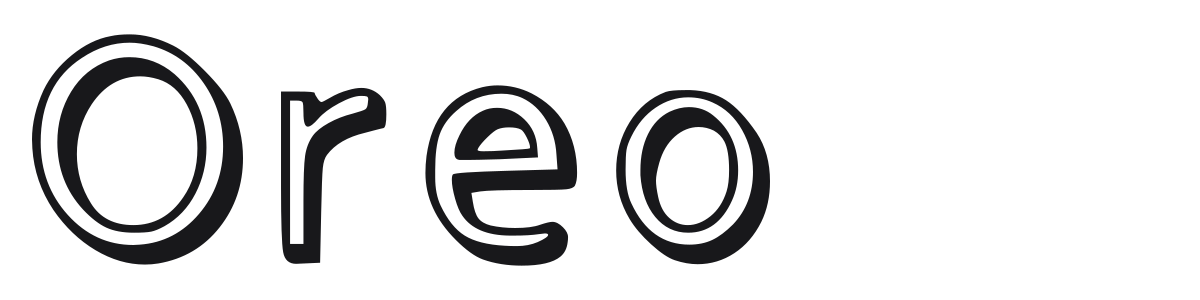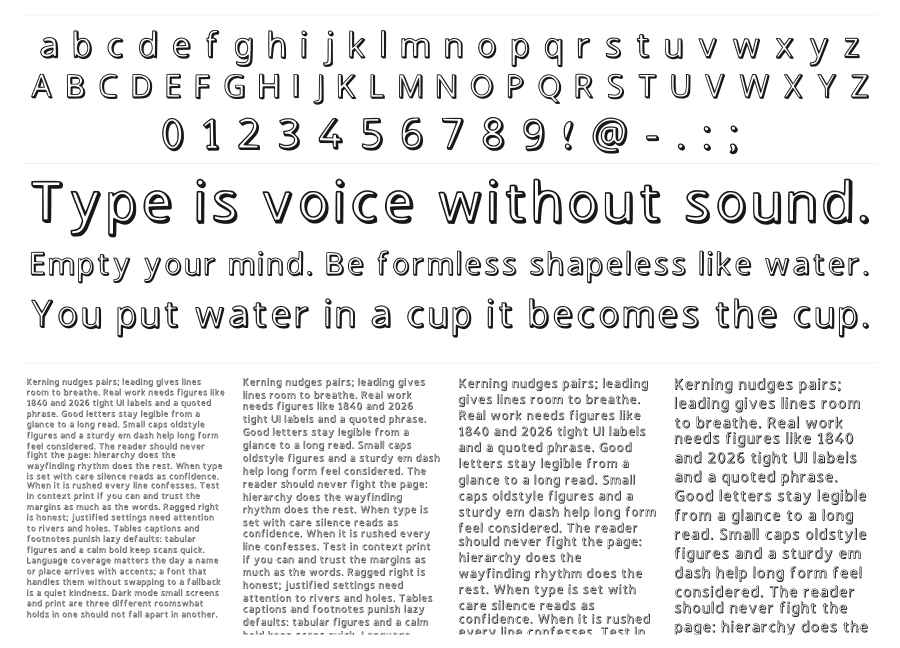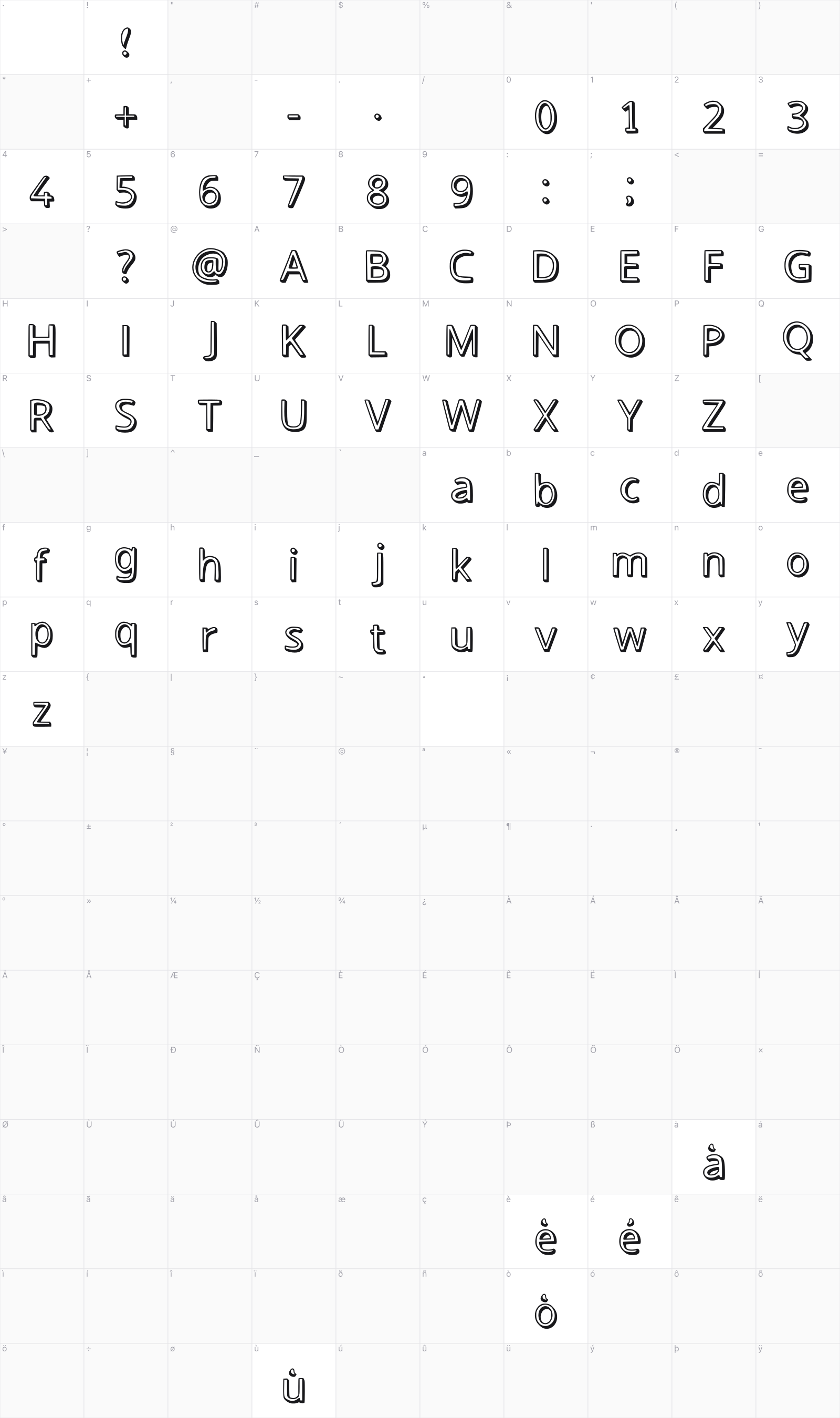
Oreo
by Federico Panelli
Oreo is a chunky rounded outline sans with a bold double-stroke construction that gives each character a soft, inflated look. The uniform stroke weight, wide proportions, and fully rounded terminals create a cheerful, approachable personality. It reads instantly at large sizes and suits branding work that needs warmth and a light touch.